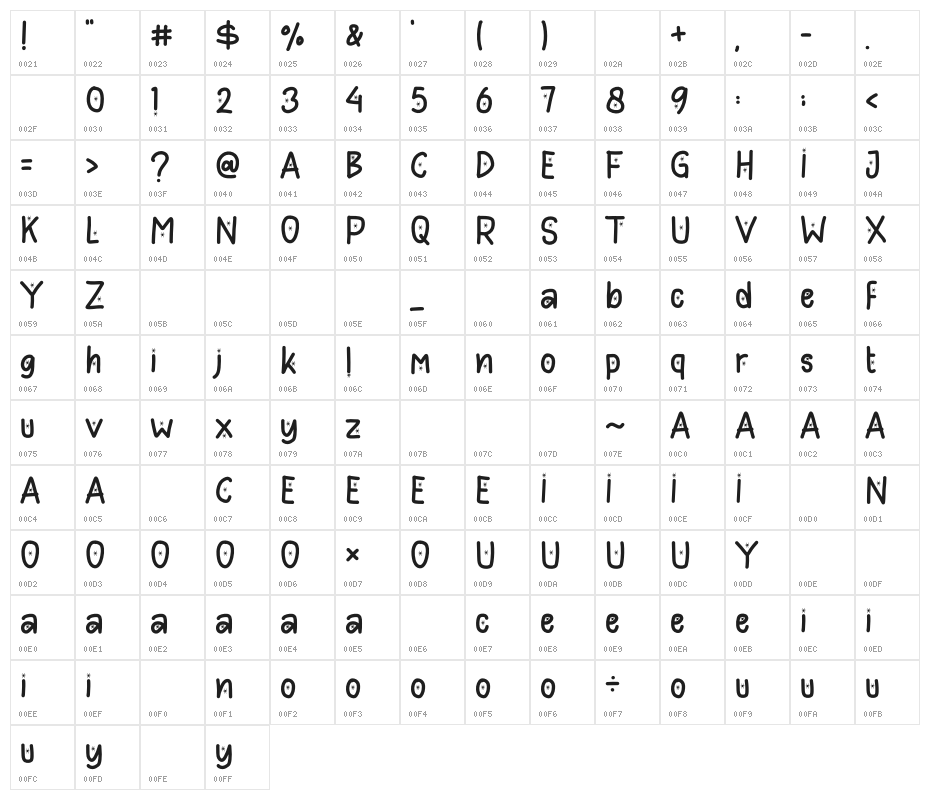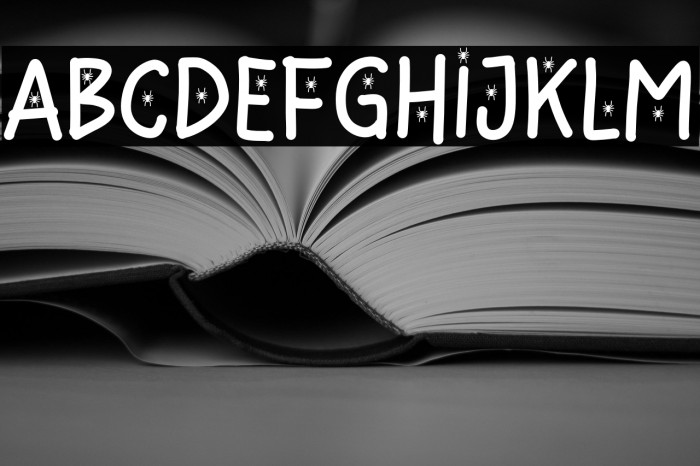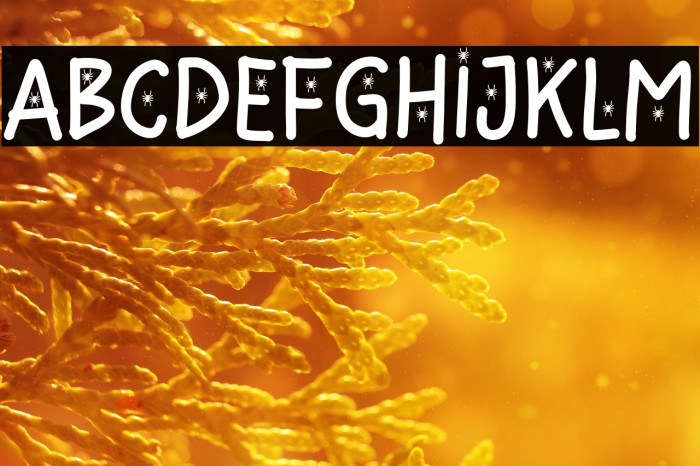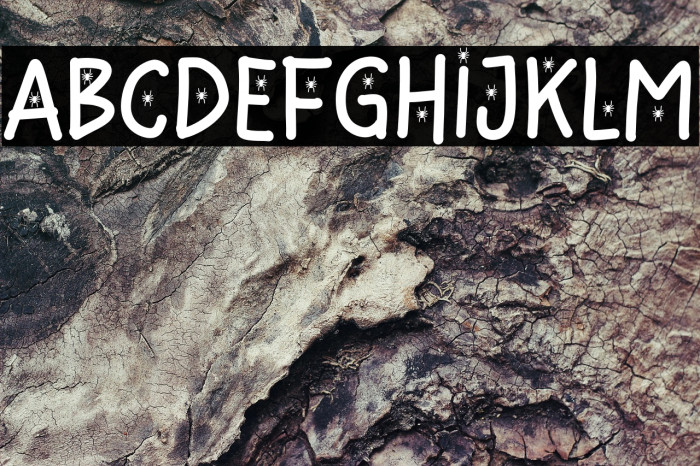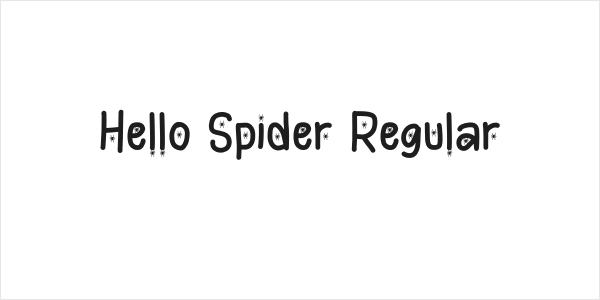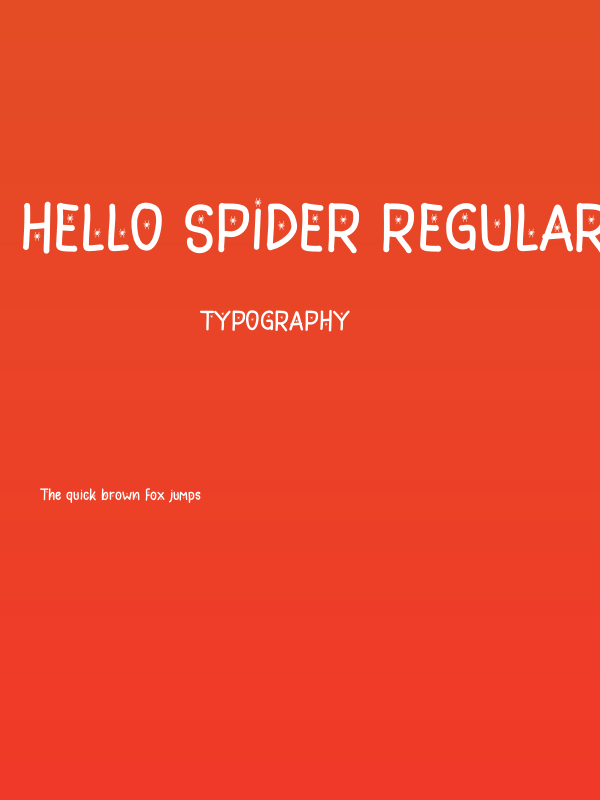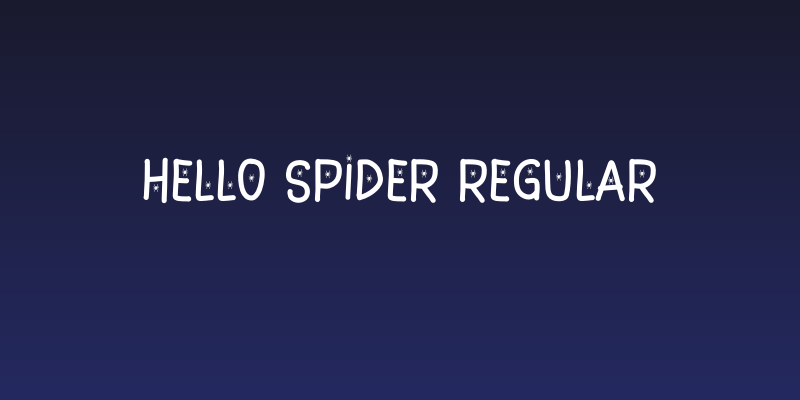
Hello Spider Regular Font
Hello Spider Regular Description
This playful and whimsical font features a unique design with spider motifs integrated into the characters, adding a touch of fun and creativity. The letters are bold and rounded, with a casual, handwritten feel that makes them stand out. The font maintains a consistent weight throughout, ensuring readability while still offering a decorative flair. The inclusion of spider graphics within the letters adds an element of surprise and interest, making it ideal for themed projects. Its informal style is perfect for capturing attention and conveying a sense of playfulness.
| Overall Style | Whimsical |
| Use Case | Headlines, Logos, Themed Events |
| Proposed Projects | Ideal for Halloween-themed designs, children's books, party invitations, and playful branding. |